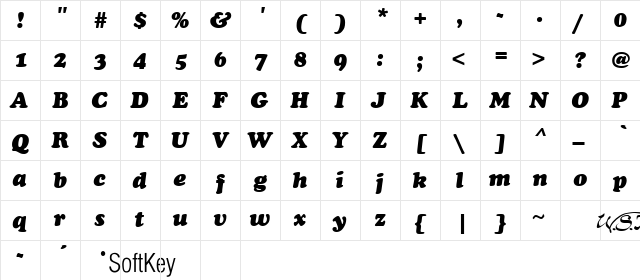
Cookies Italic Regular
Design Context for Cookies Italic Typeface
Cookies Italic offers clean, dependable letterforms without strong stylistic allegiance, making it a practical choice for designers who need flexibility. The slanted form adds forward momentum and visual energy.